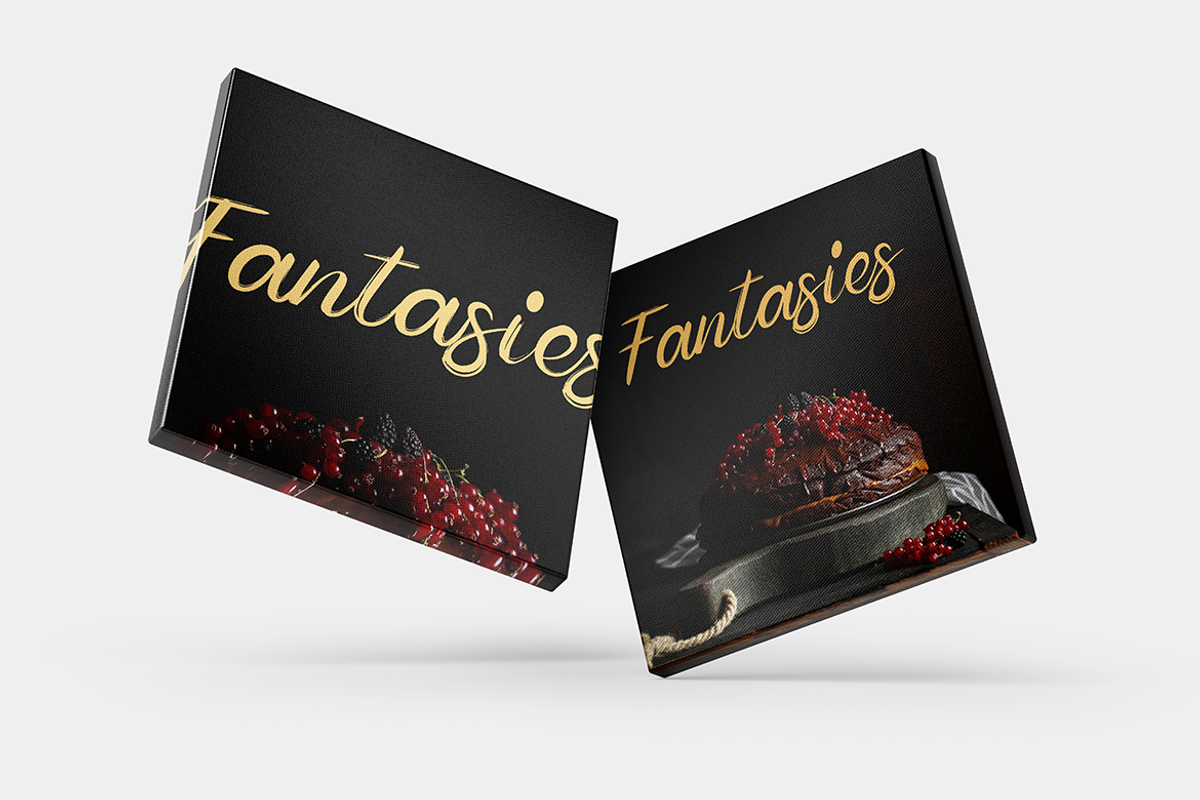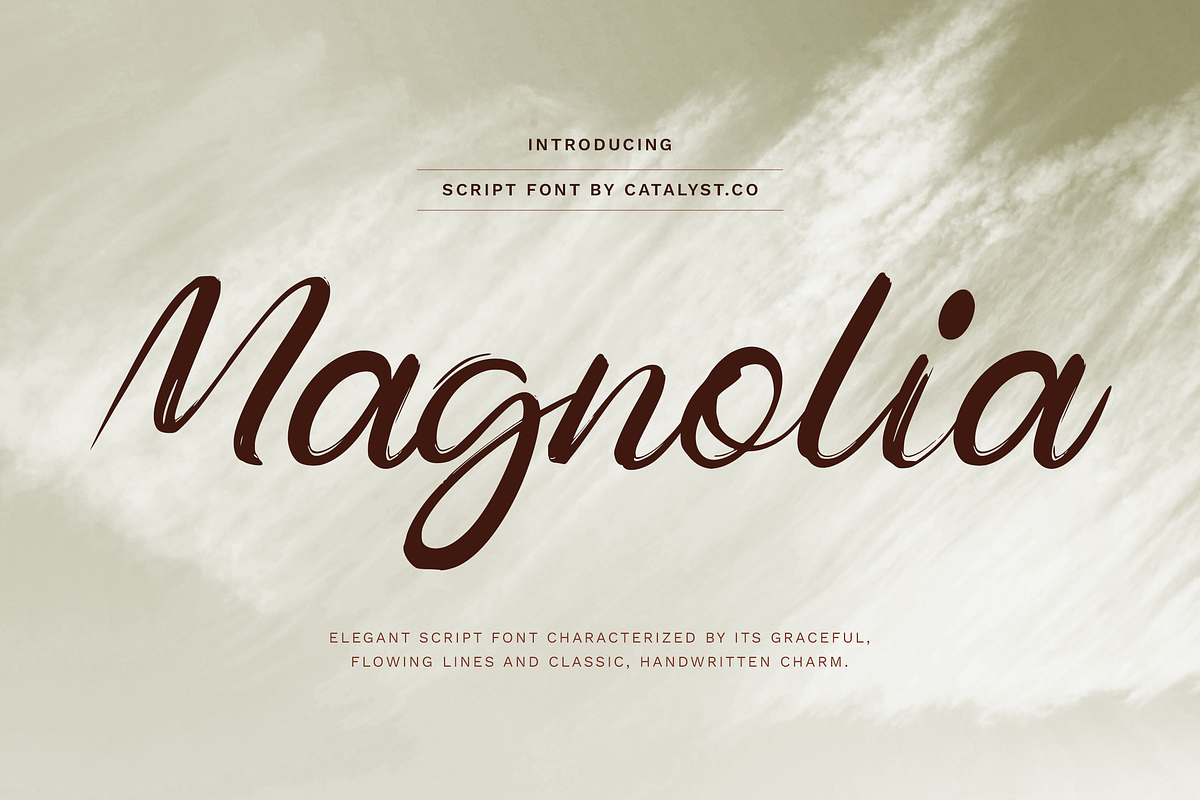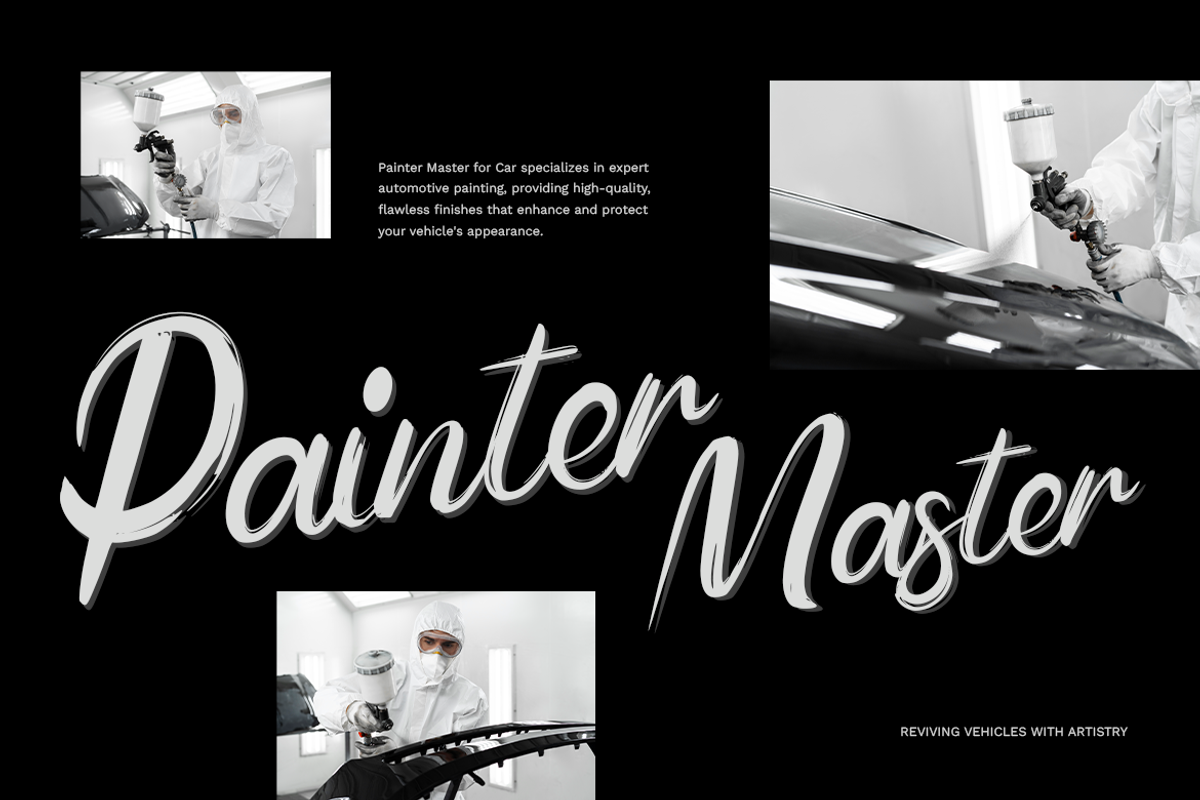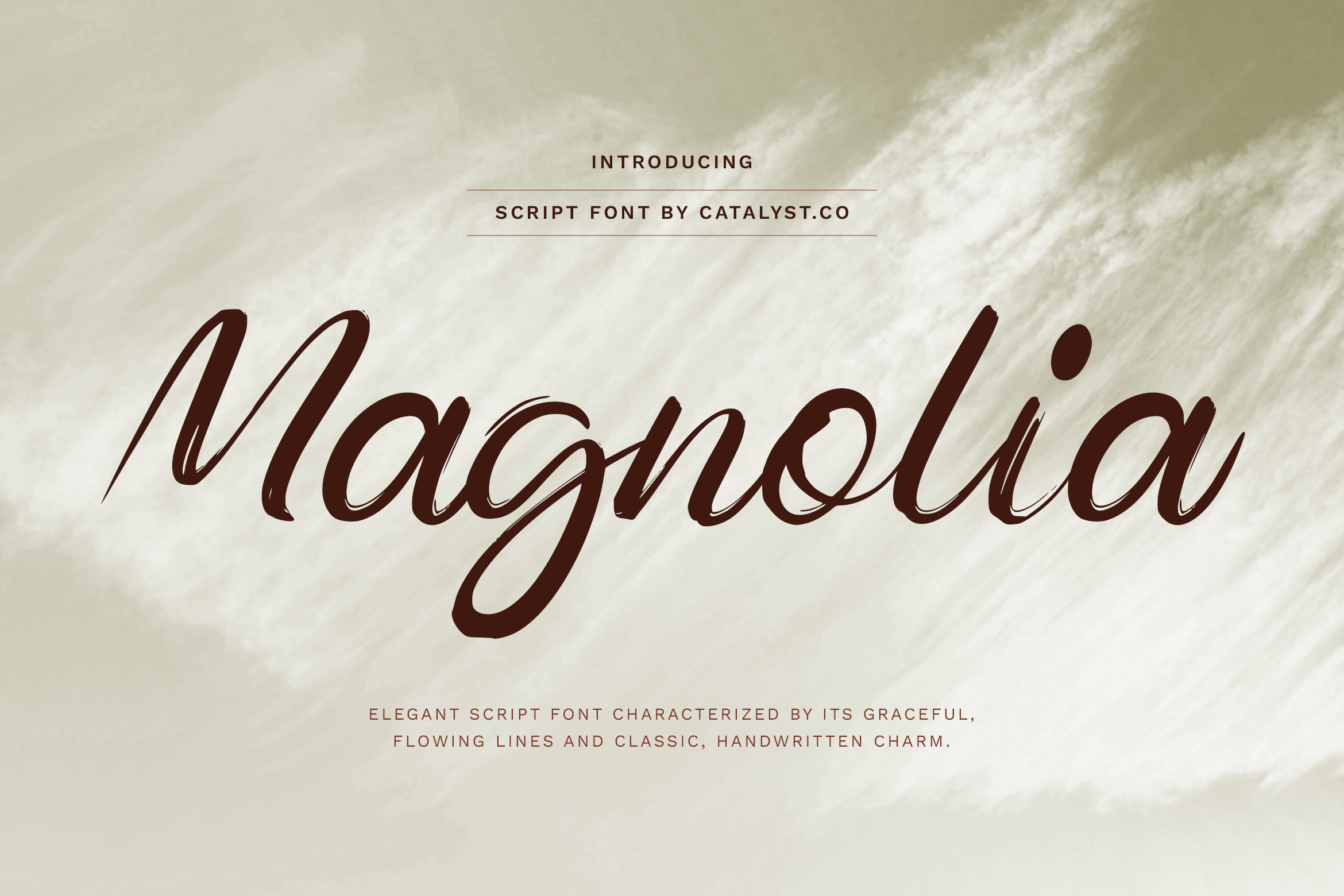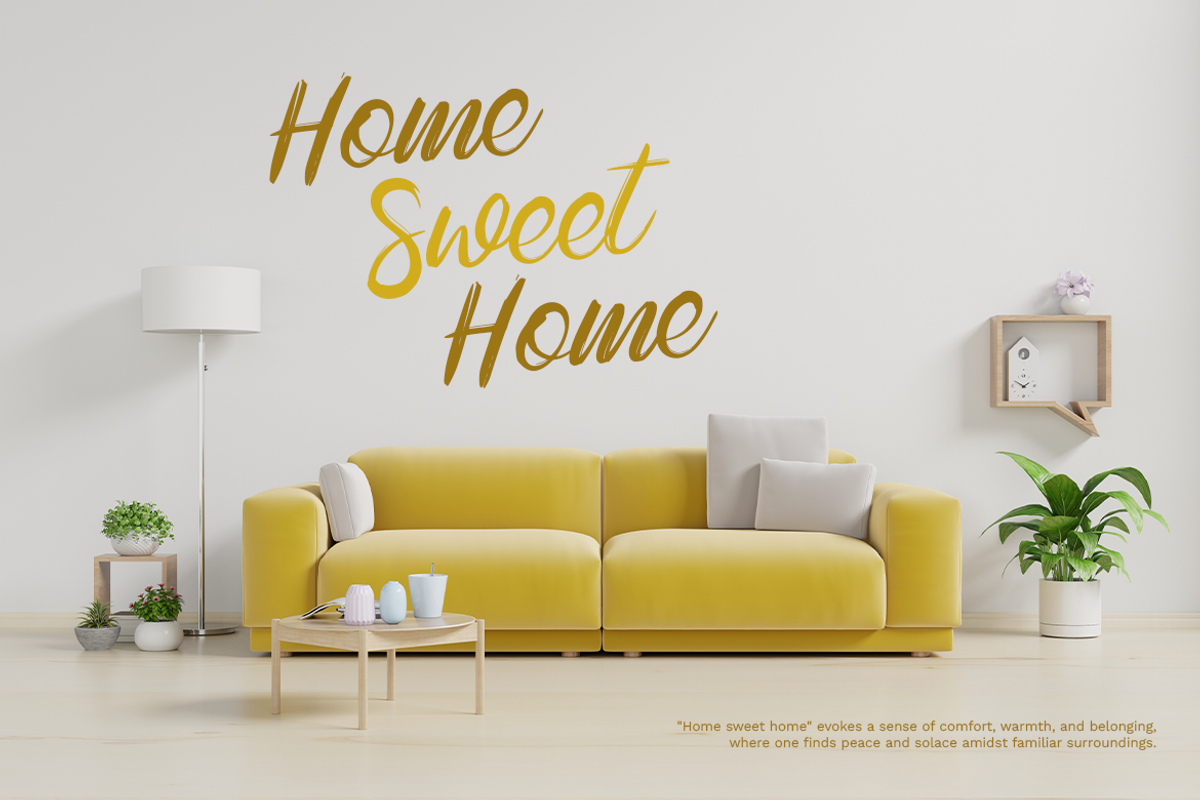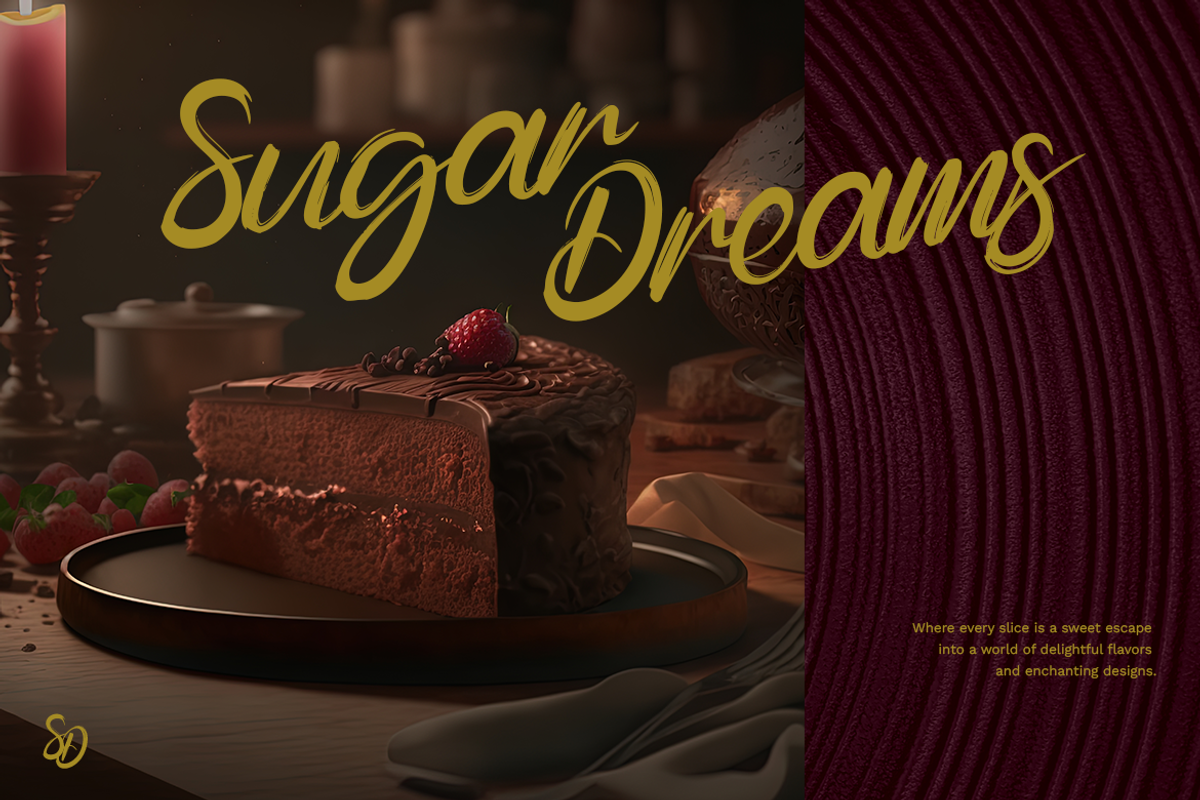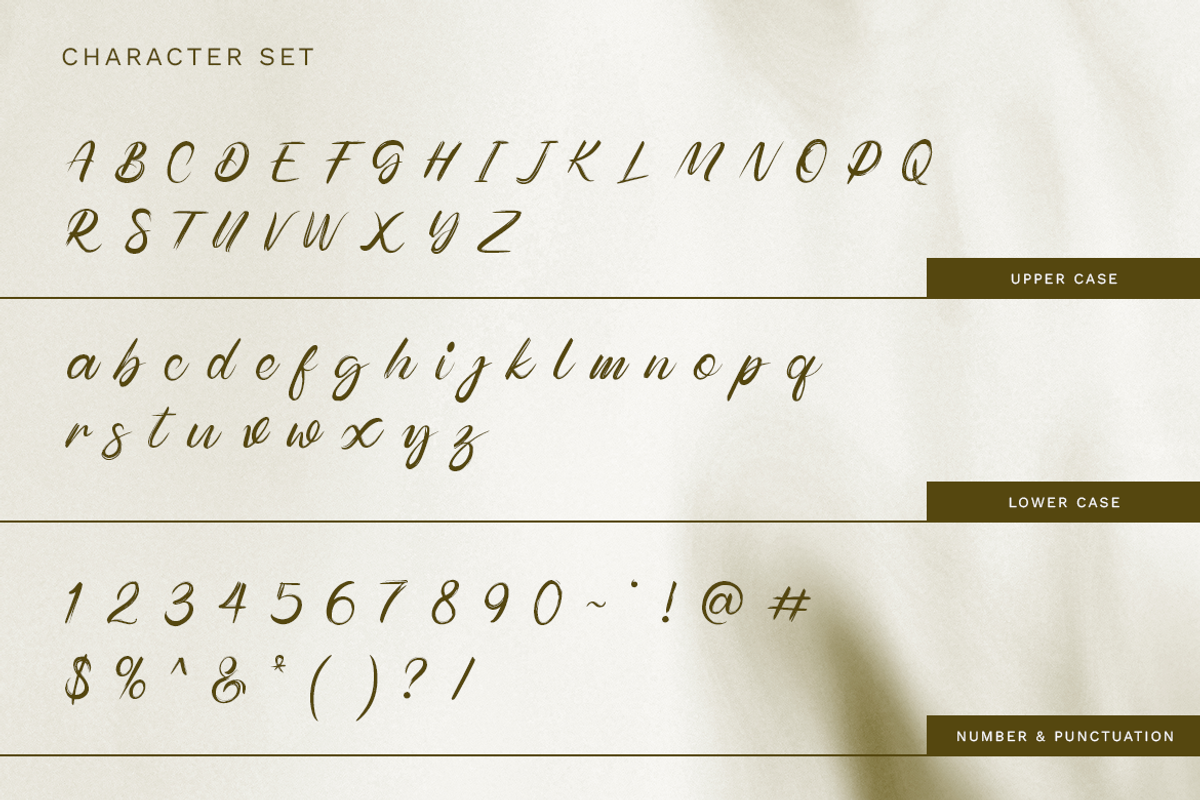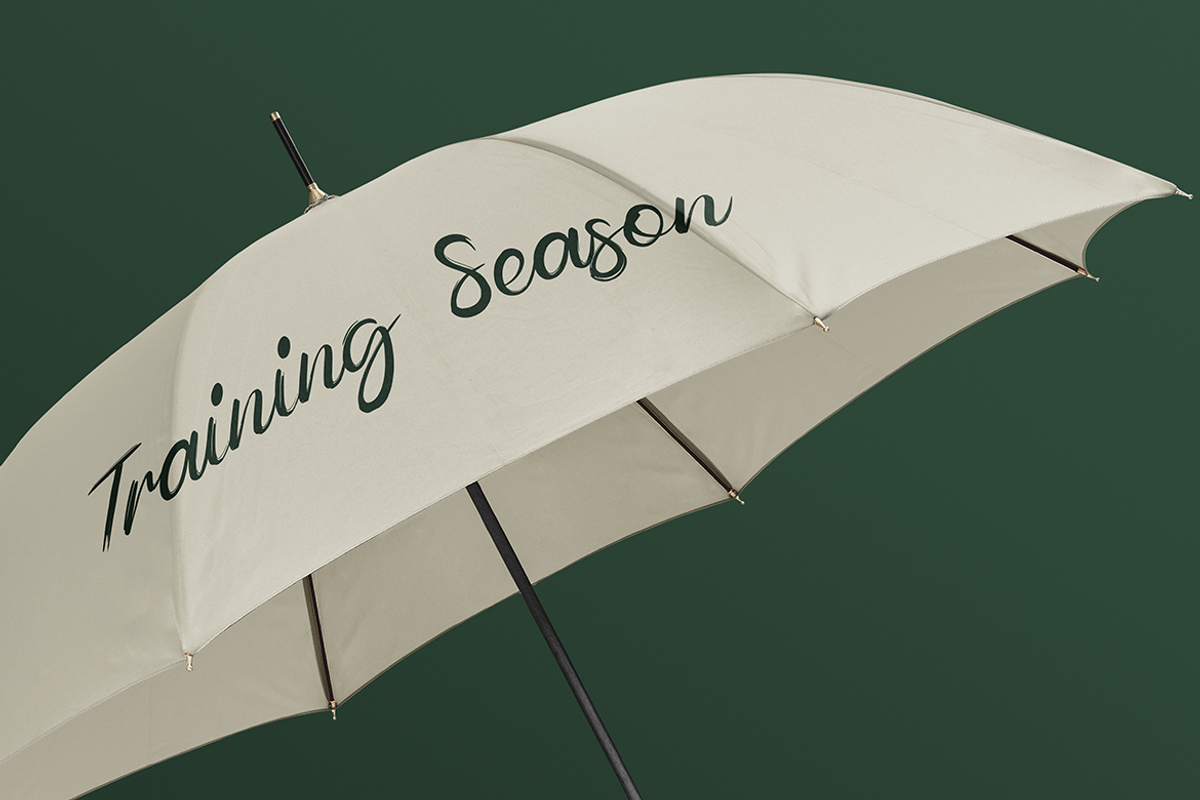
Magnolia Script Font
Magnolia Script Font typeface excellent used for the manufacture quote text, logotype, header magazine, and many more.
Main Features
- Numeral & Punctuations